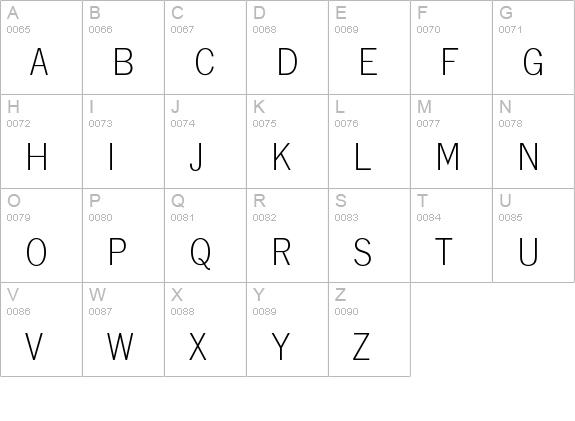
LightlineGothic-Normal Font Details
LightlineGothic-Normal is the standard, neutral variant in the LightlineGothic typeface family \xE2\x80\x94 well suited to general body text, paragraphs, and standard typographic work.